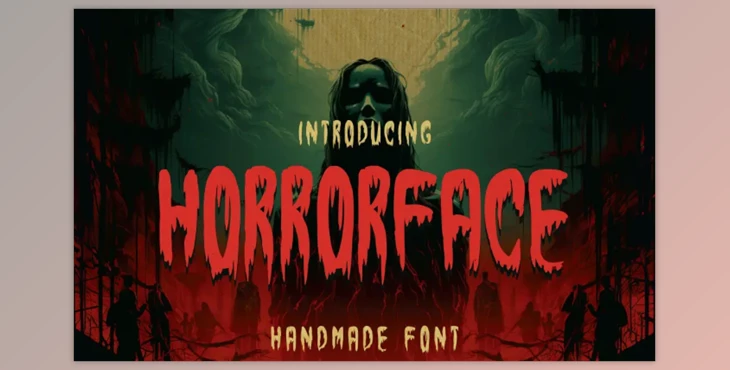
Horrorface - A Handmade Horror Font: Horrorface transcends the realm of mere typography; it beckons you to plunge into the abyss of darkness and horror. Meticulously crafted, this handmade font is a chilling masterpiece, meticulously designed to send shivers down your spine.
Each letter is a haunting work of art, emanating an eerie and sinister aura tailor-made for horror-themed projects. Whether you're conjuring up spooky posters, crafting chilling book covers, or inscribing haunting movie titles, Horrorface injects an element of fear and suspense that enthralls your audience, immersing them in the deepest shadows of your design.
Horrorface – Handmade Font is essential for graphic designers, writers, and filmmakers seeking to evoke terror and suspense in their creative endeavors. Its versatility empowers you to generate chilling content, from haunted house flyers to ghostly merchandise.
With Horrorface, your text morphs into a living entity, whispering macabre tales and drawing readers into a world of fright. Embrace the darkness and allow Horrorface to be your conduit to the spine-tingling realms of horror.